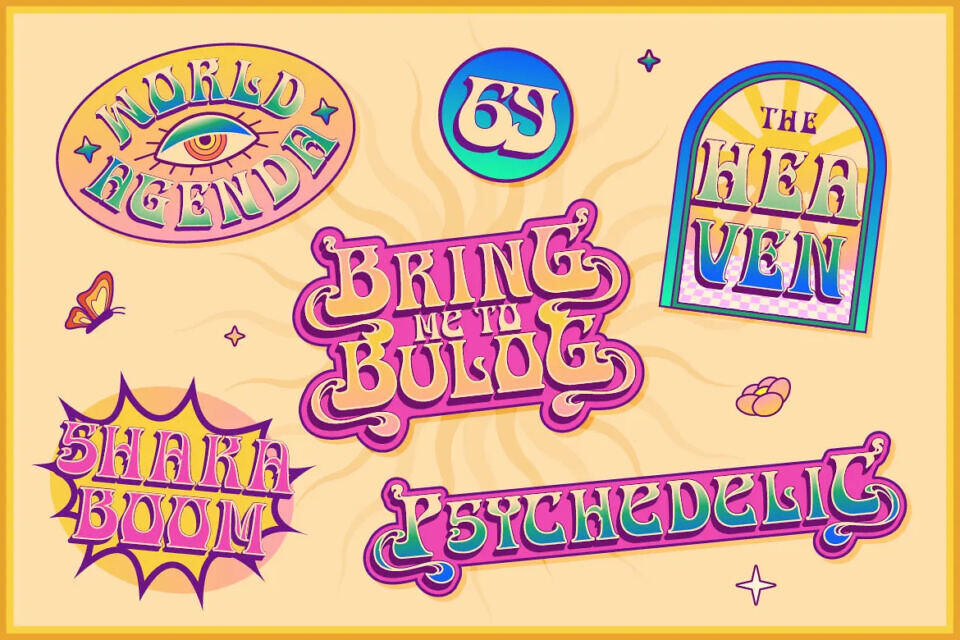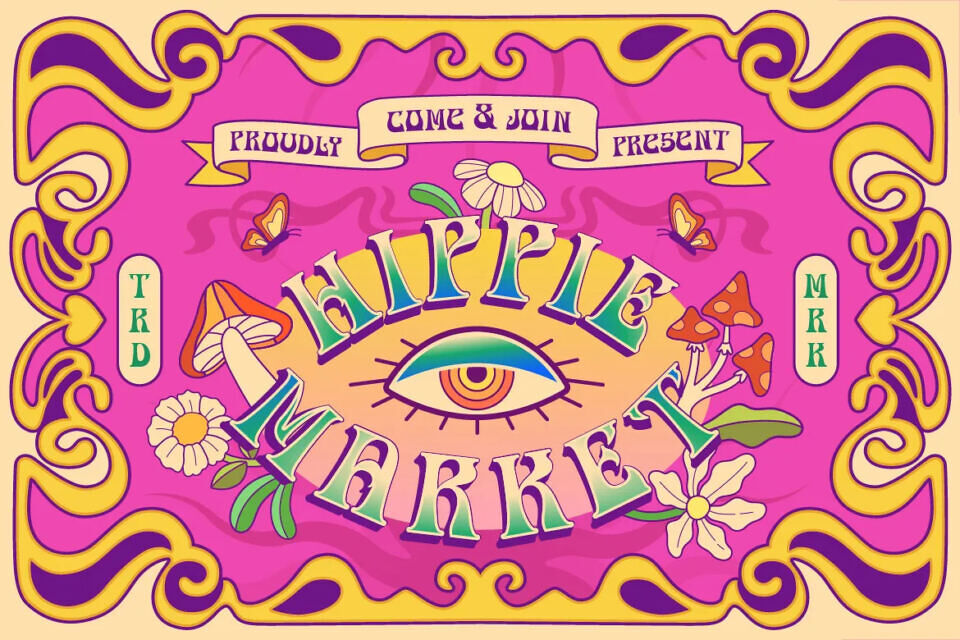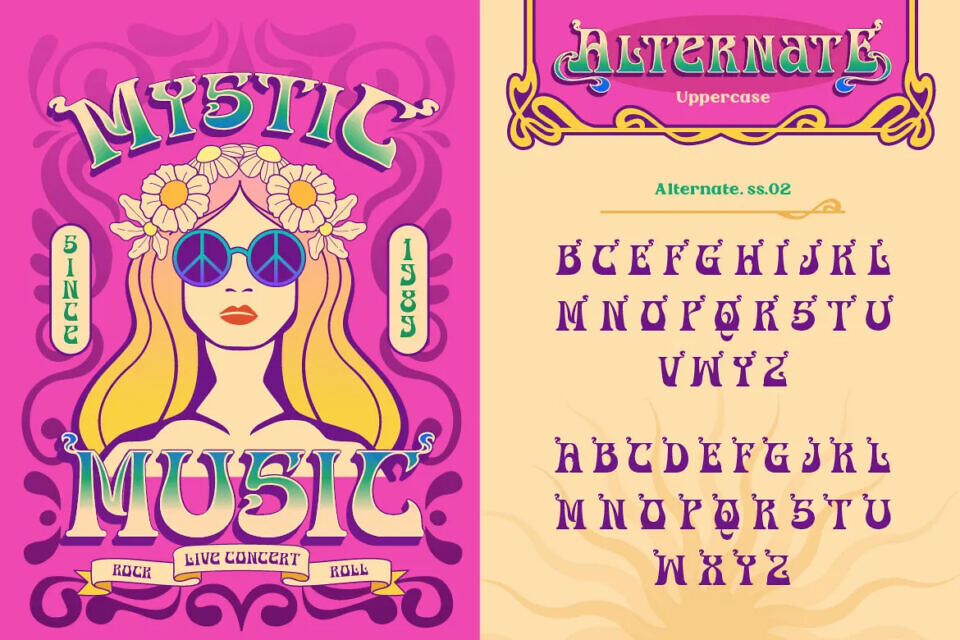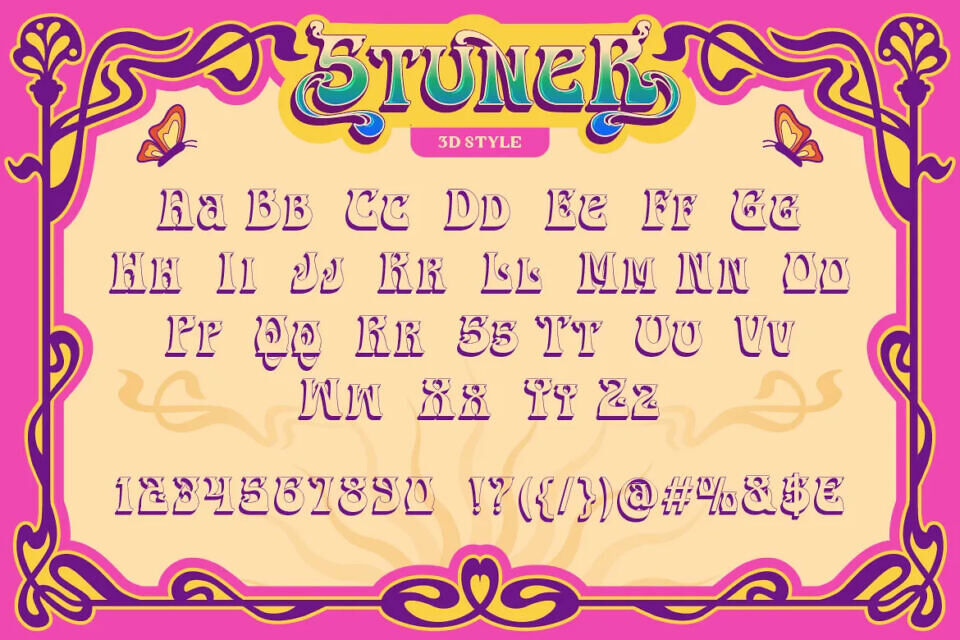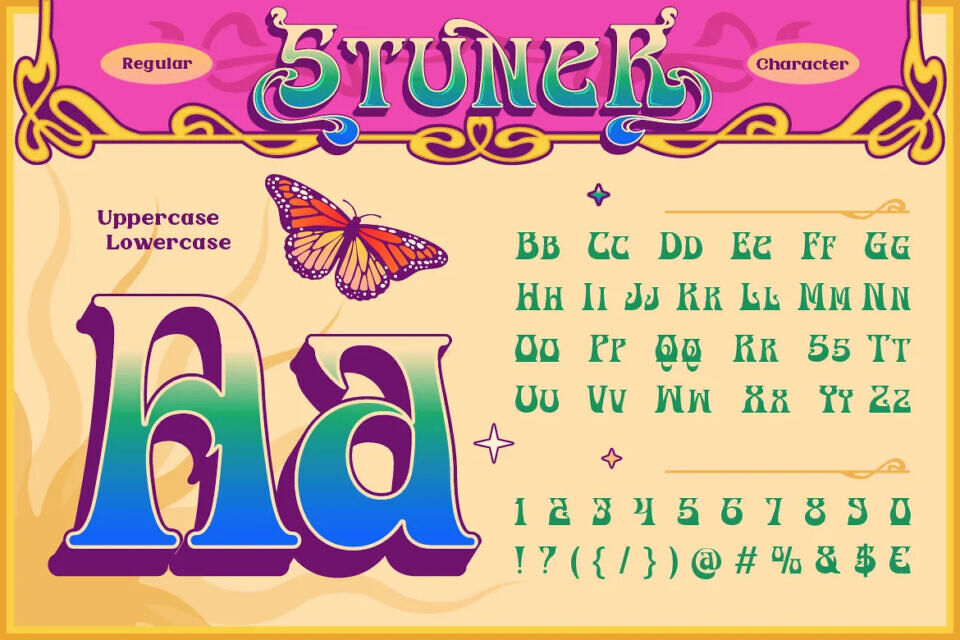
Stuner Font
Stuner is a playful, psychedelic font that blends 60s-70s retro energy with a contemporary edge. Available in 2 styles: Regular & 3D.
Its asymmetrical shapes give it a handmade, vintage feel, while the 3D style makes the letters look like they are getting high off the page with trippy dimensional effect.